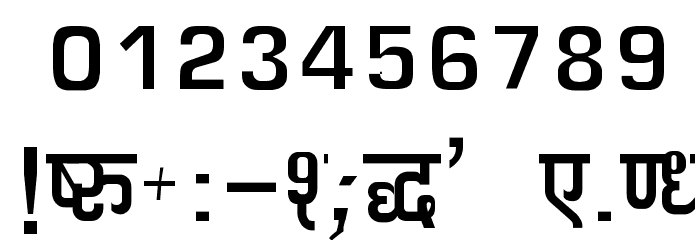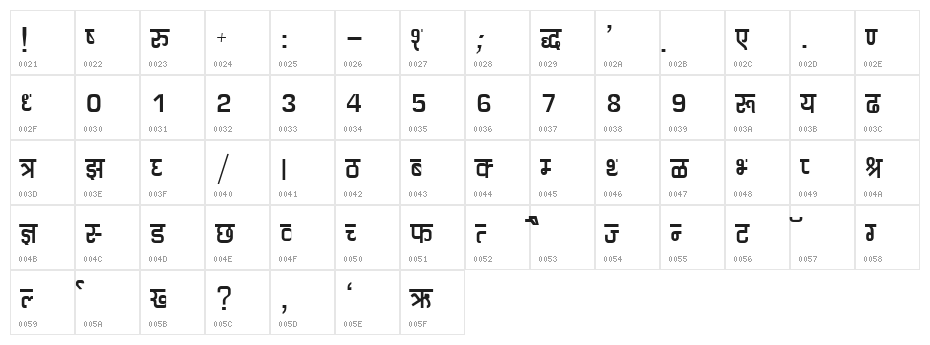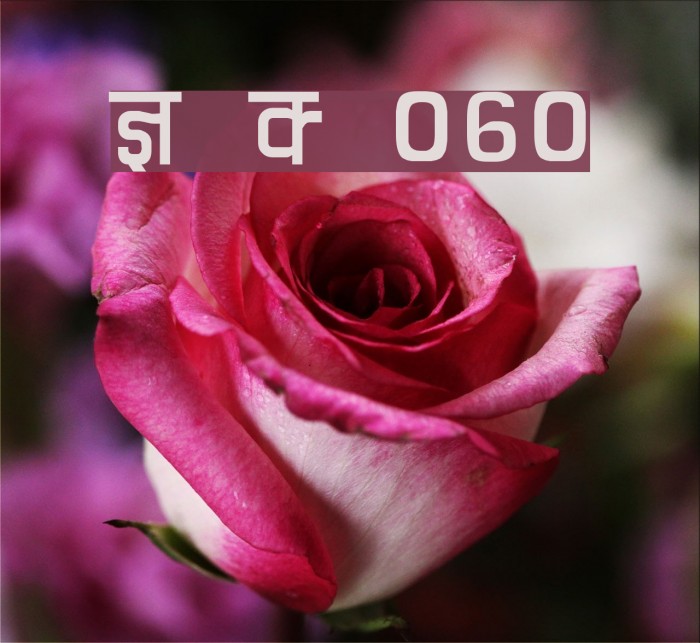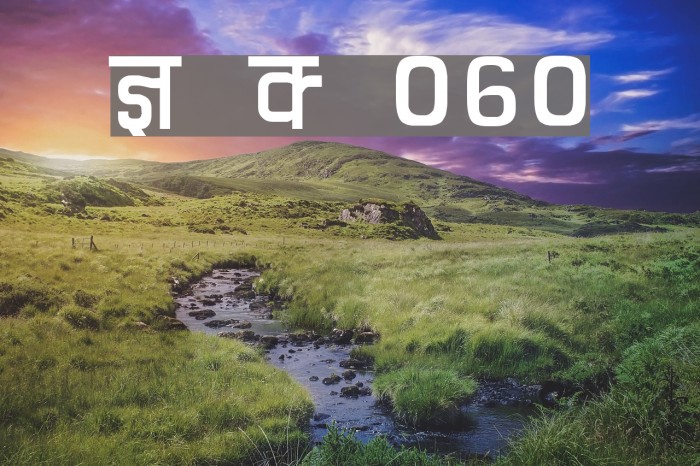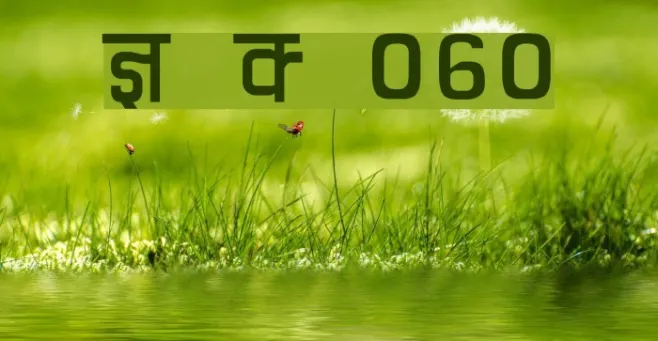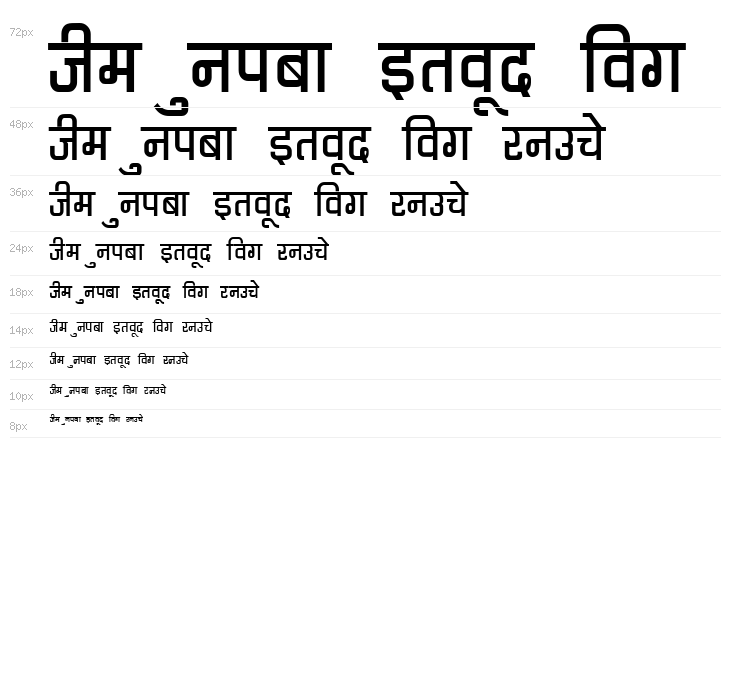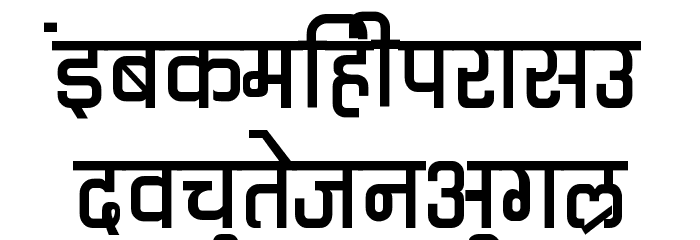
Kruti Dev 060 Font
Kruti Dev 060 Description
This font is a Devanagari script typeface with a bold and structured appearance. It features distinct, geometric shapes with consistent stroke widths, giving it a modern and clean look. The characters are well-defined, with sharp angles and a uniform baseline, making it highly legible. The numerals and special characters are designed to match the overall style, maintaining the same boldness and clarity. This font is suitable for both digital and print media, providing a professional and polished appearance.
| Use Case | Headlines, Signage, Educational materials |
| Proposed Projects | Ideal for signage, headlines, posters, and educational materials requiring Devanagari script. |